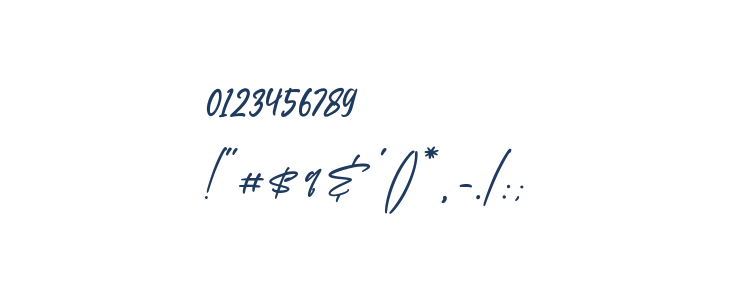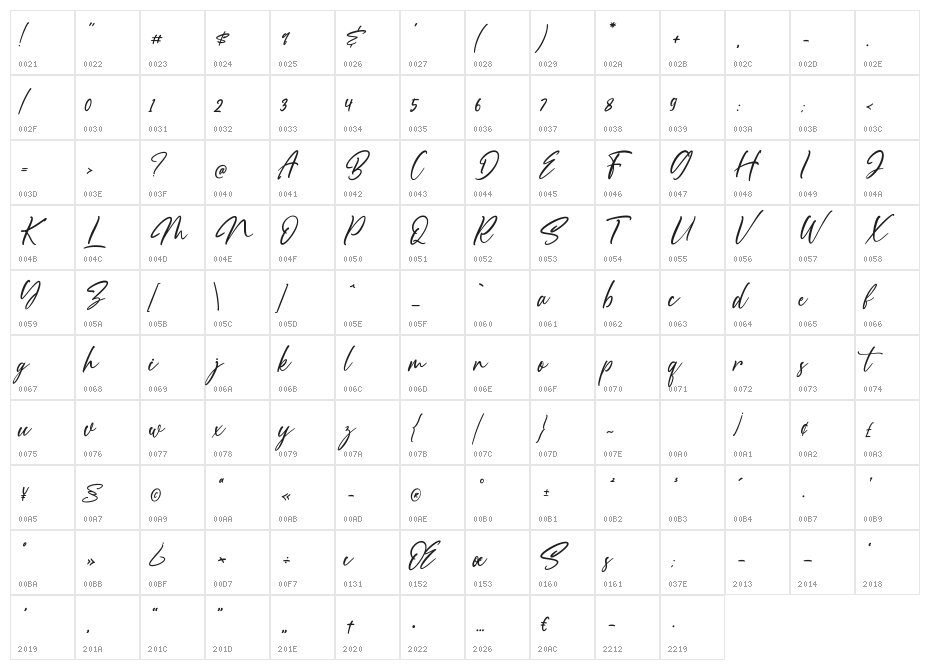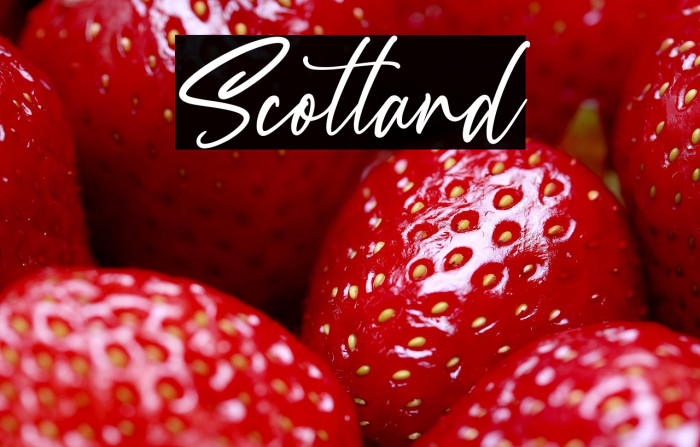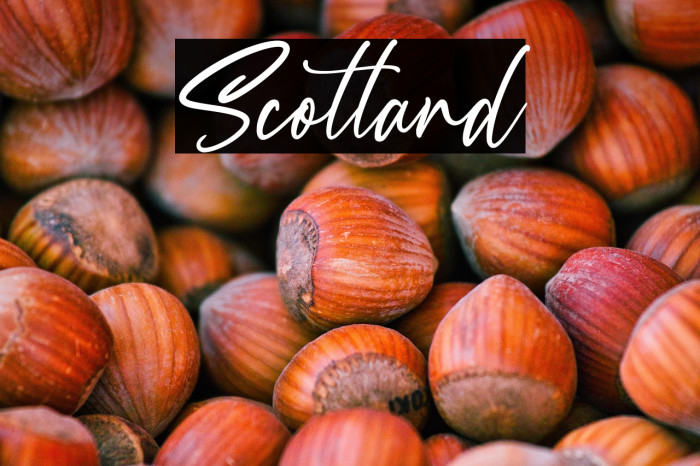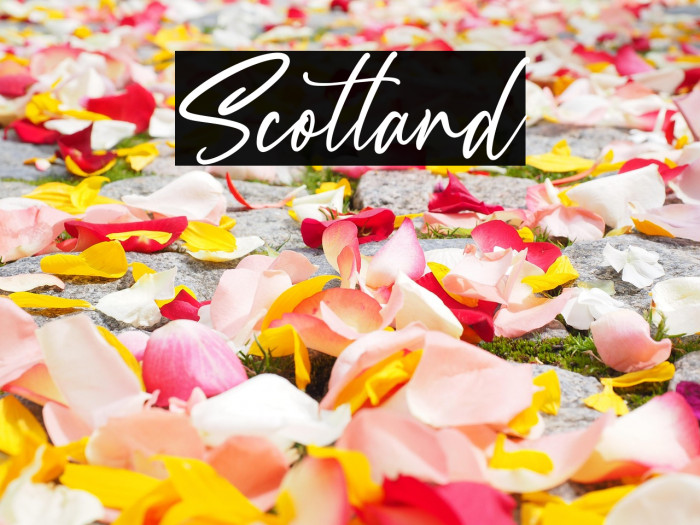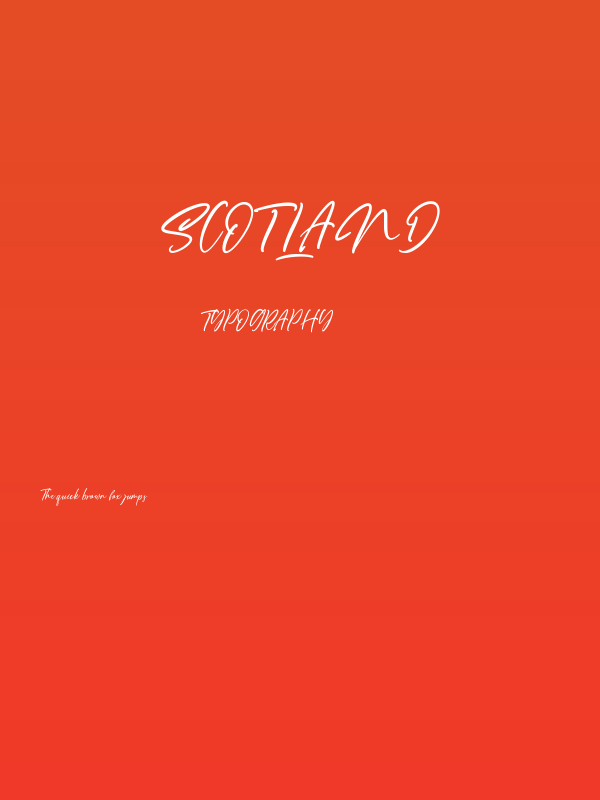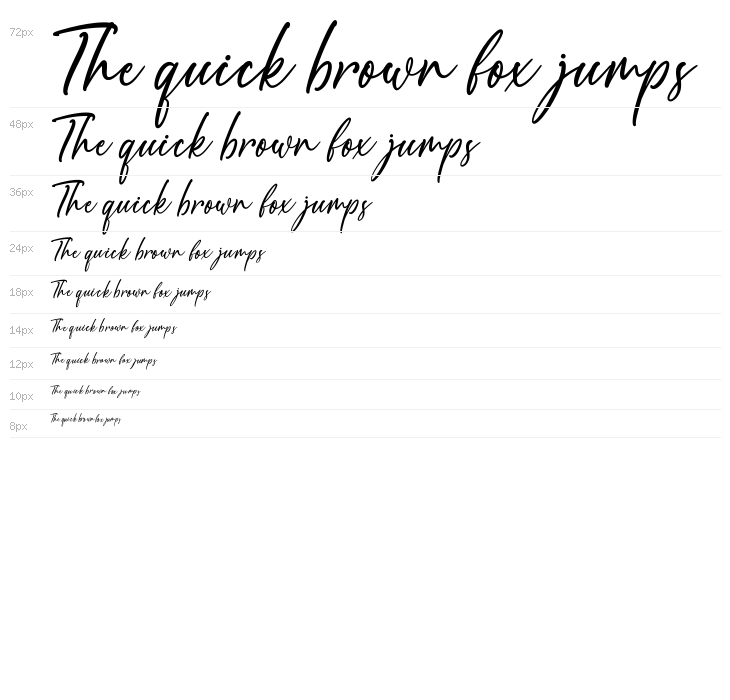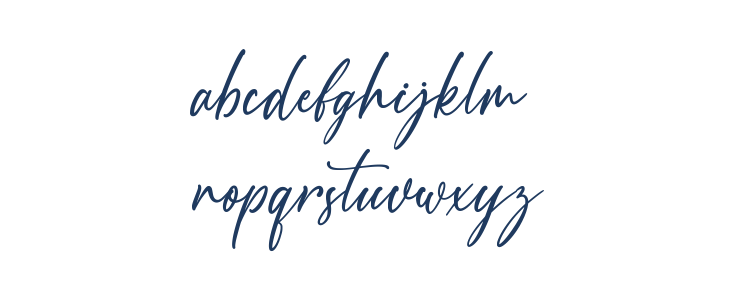
Scotland Font
Scotland Description
This font is a beautifully crafted script typeface that exudes elegance and fluidity. The characters are connected in a seamless flow, giving it a handwritten appearance. The uppercase letters are tall and graceful, while the lowercase letters maintain a consistent rhythm, enhancing readability. The numbers are stylishly integrated, complementing the overall aesthetic. Special characters are thoughtfully designed, adding versatility to the font. Its smooth curves and delicate strokes make it ideal for projects that require a personal touch.
| Overall Style | Elegant |
| Use Case | Logos, Invitations, Greeting Cards |
| Proposed Projects | Ideal for wedding invitations, greeting cards, branding, and logo design. |